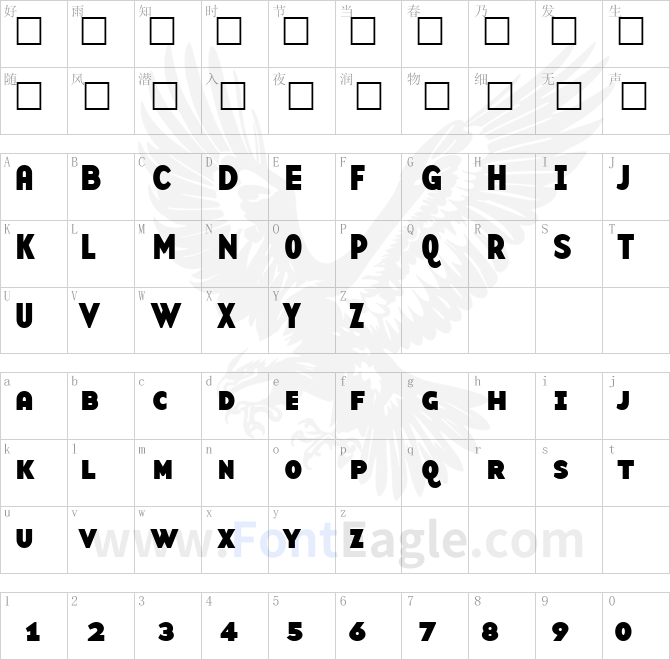
- Font name:BaseTwSansSmallCaps
- Font Full Name:BaseTwSansSmallCaps Bold
- Font Copyright:Copyright (C) 1995, Emigre Graphics; designed by Zuzana Licko